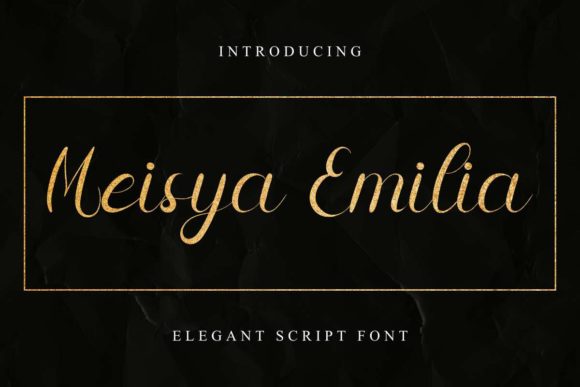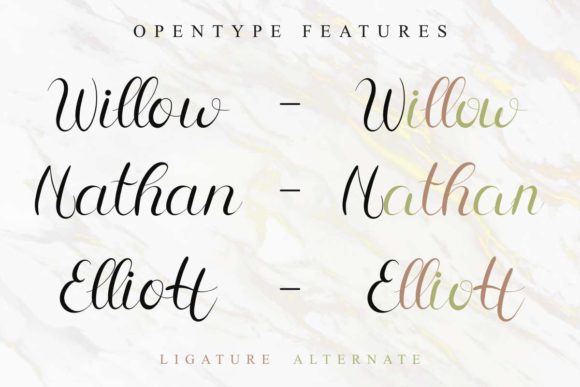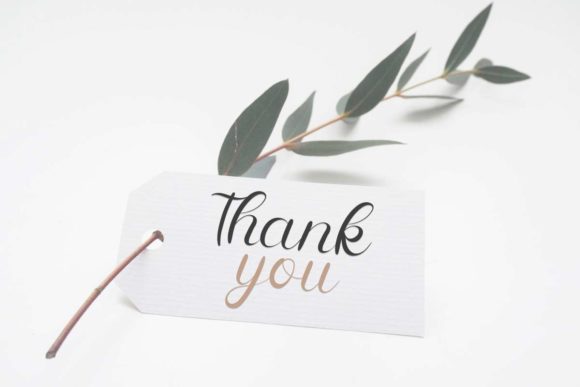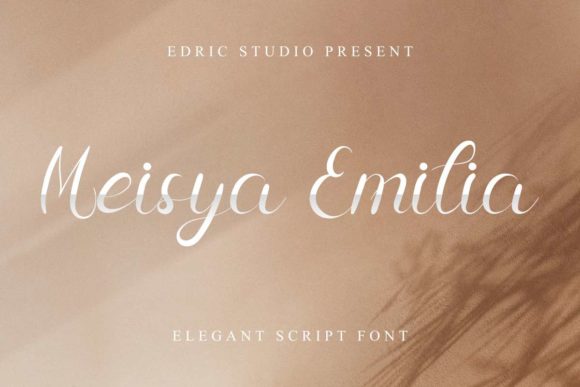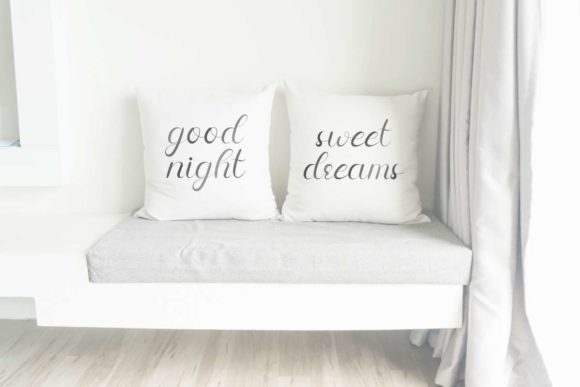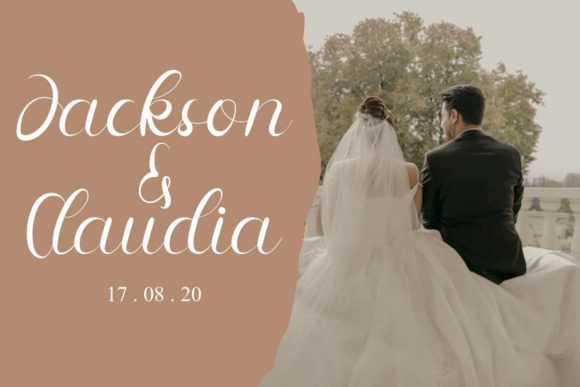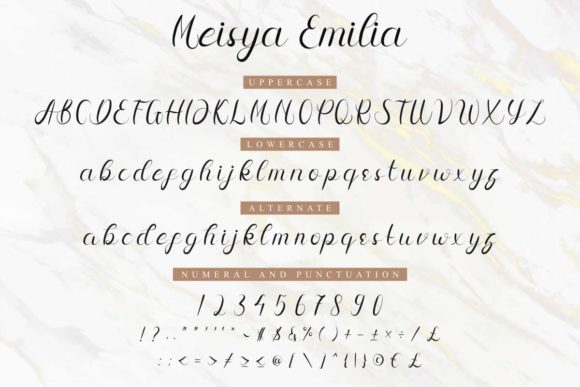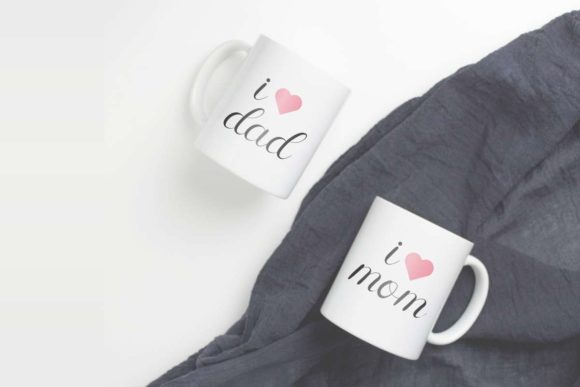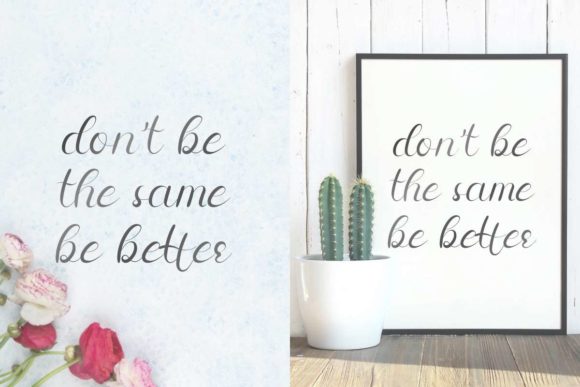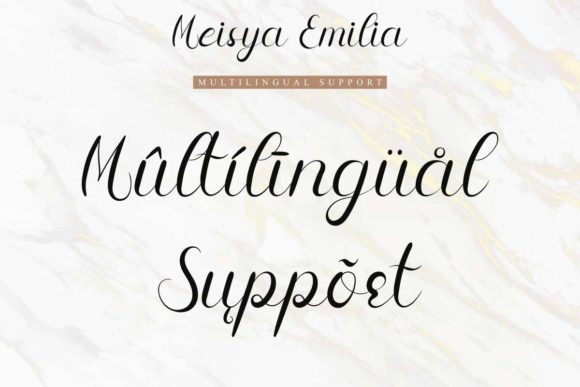
Meisya Emilia Font
About Meisya Emilia Font
Meisya Emilia is a classic handwritten font with an incredibly neat calligraphy. It looks stunning on wedding invitations, thank you cards, quotes, greeting cards, logos, business cards and every other design which needs a handwritten touch.